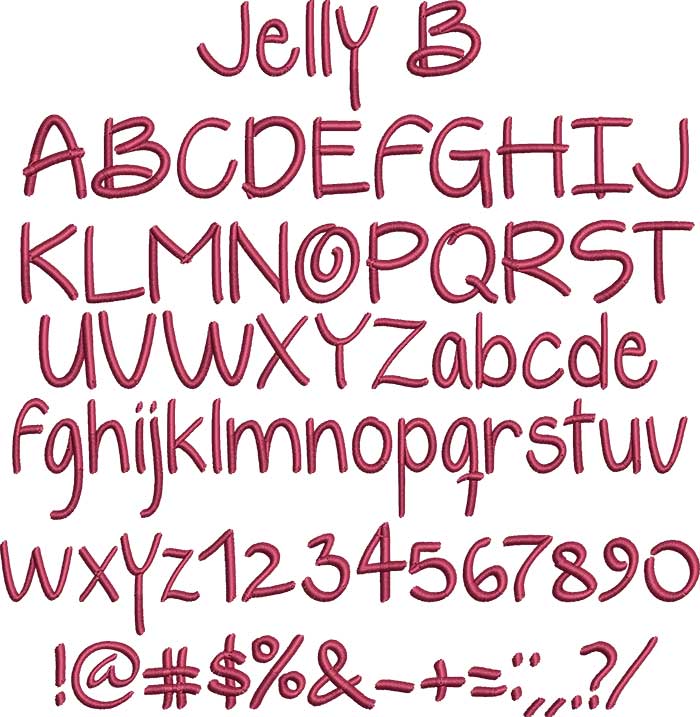
BX Embroidery Font: Jelly B
BX Embroidery Font: Jelly B Font Bundle (4 sizes) is a casual, handwritten machine embroidery font that includes A-Z, a-z, 0-9 and punctuation; 4 sizes.
BX Embroidery Font: Jelly B is a casual, handwritten machine embroidery font that includes A-Z, a-z, 0-9 and the following punctuation: !@#$%&-+=:;?/., (77 total characters).
It includes the following sizes: 17mm (~5/8″) satin, 25mm (~1″) satin, 50mm (~2″) satin, 75mm (~3″) fill.
BX Embroidery Font: Jelly B is a casual, handwritten machine embroidery font that includes A-Z, a-z, 0-9 and the following punctuation: !@#$%&-+=:;?/., (77 total characters).
It includes the following sizes: 17mm (~5/8″) satin, 25mm (~1″) satin, 50mm (~2″) satin, 75mm (~3″) fill.
Each character in this alphabet is individually manually digitized; we do not use a TrueType to Stitches conversion utility to create our fonts. Additionally, stitch attributes such as stitch type, density, compensation, and underlay are optimized for each size available. Choose the size closest to what you need. Shrinking the smallest size is not recommended.
Our fonts were manually digitized; we do not use a TrueType to Stitches conversion utility to create our fonts. Plus, stitch attributes such as density, compensation, and underlay are optimized for each size available.